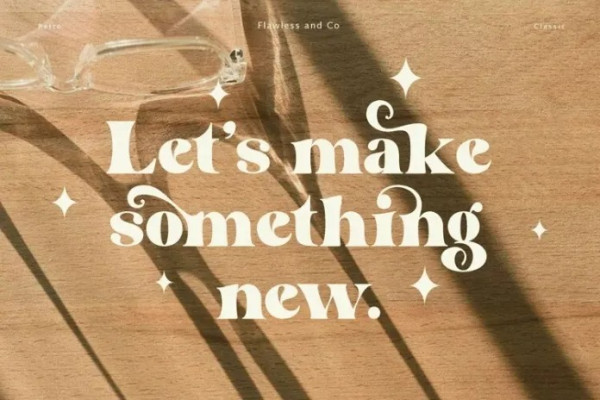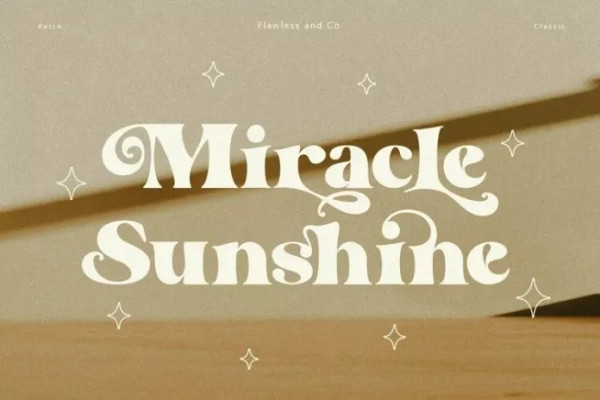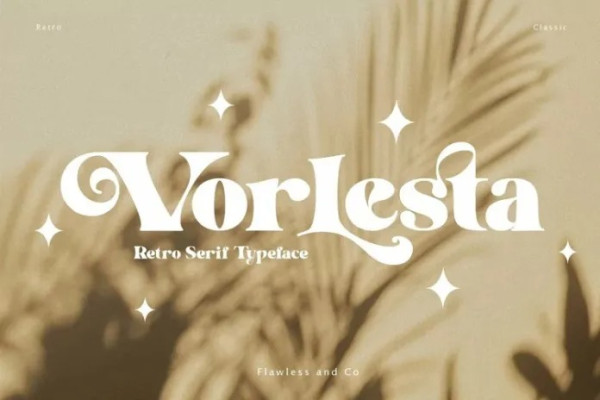
Vorlesta Font
Vorlesta Font is a Modern Retrotype that made with an unique style in each character, so it’s fitted for some retro project. There’s some connected letters and some alternates that suitable for any graphic designs such as branding materials, t-shirt, print, business cards, logo, poster, t-shirt, photography, quotes .etc
This font support for some multilingual. Also contains uppercase A-Z and lowercase a-z, alternate character, numbers 0-9, and some punctuation.